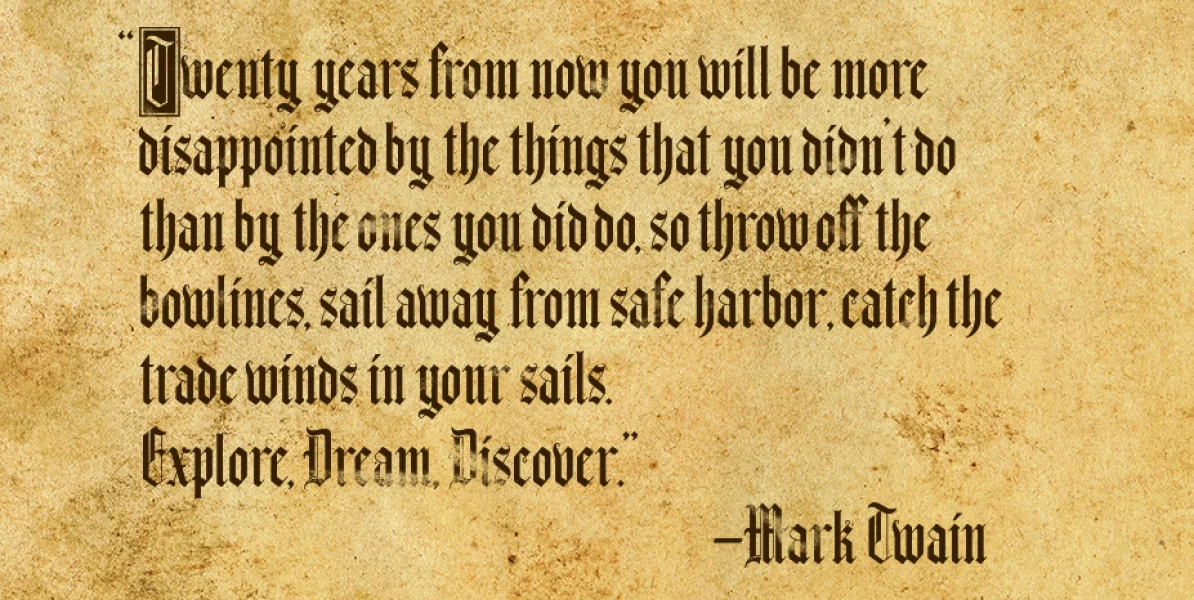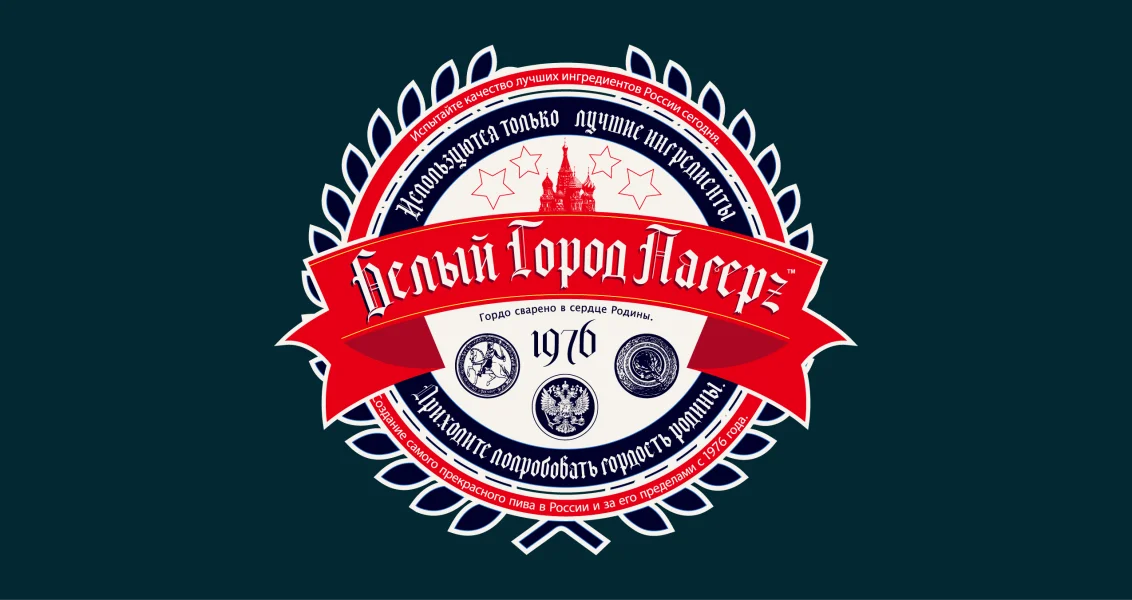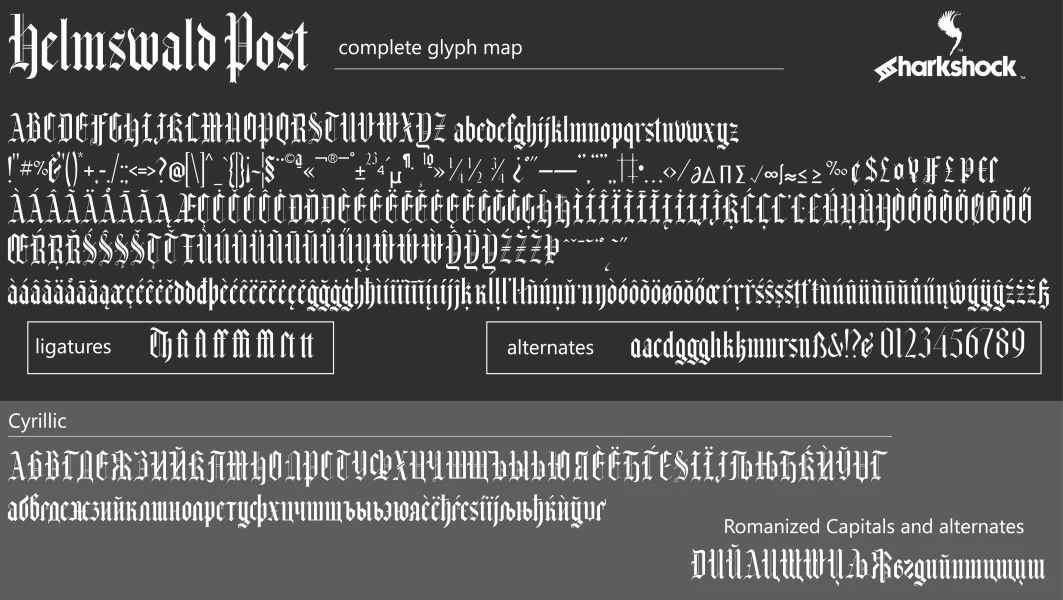
Helmswald Post is a handsome Blackletter that's been years in the making. After Enchanted Land was created the idea for a medieval script with a more modern feel materialized. There's a large mix of wispy terminals, flamboyant caps, and the use of negative space to create contrast.
Elements from many different letters and time periods make their way into this beautiful display font. Basic latin, extended latin, punctuation, ligatures, European accents, diacritics, alternates, and Cyrillic characters are included. There are many blackletter fonts out there but very few with Cyrillic characters for Russian, Ukrainian, or Macedonian. Romanized Capitals and alternates are included by using the alternates or stylistic sets. Old world numerals may be substituted by accessing the stylistic sets as well.